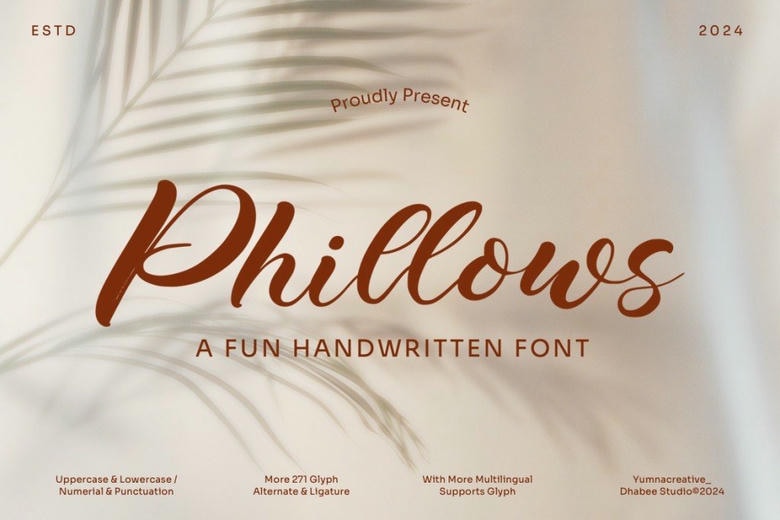
Phillows Font
Phillows is a Fun Handwritten Font. This Font is a handwritten font that is beautiful, graceful and has alot of curves. They are beautiful and well and has a unique combination of ligatures a letter, so that the authors compose it with a tiny dot, and has a swirly embedding, so that a modern font is created and almost ready for use to give an elegant and unique appearance to your next project.
Phillows Handwritten Script Font